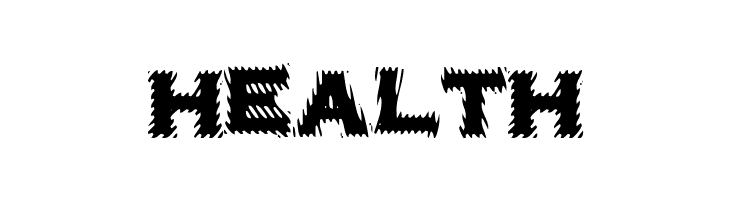
A bold, dripping font with a playful, eerie style perfect for spooky themes.
A bold, drippy font with a spooky, playful style.
A bold, distressed font with jagged, eroded edges for dramatic impact.
A decorative, distressed font with an eerie, horror-themed style.
A bold, geometric font with a futuristic, angular design.
A bold, playful outline font with a cartoonish and energetic style.
A bold, playful font with a shadow effect and cartoonish style.
A bold, playful font with rounded, exaggerated shapes and a whimsical style.
A playful and bold font with rounded, whimsical letterforms.
A playful, outlined font with a hand-drawn, whimsical style.
A playful, bold font with a hand-drawn style and shadow effect.
A playful, bold font with a shadow effect and cartoon-like style.
A playful, bold font with rounded, quirky characters.
A playful, outlined font with a cartoonish and whimsical style.
A playful, bold font with a distinctive shadow effect and cartoonish style.
A playful, outlined font with a crafty, handmade feel.
A playful, hand-drawn font with a whimsical and casual style.
A playful and whimsical font with lively curves and angles.
A playful, outline-style font with rounded, whimsical characters.
A playful, bold font with a shadow effect and cartoon-like style.
A playful, bold font with a cartoonish style and shadow effect.
A playful, bold, and outlined font with a cartoonish, hand-drawn style.
A playful, hand-drawn style font with bold, rounded characters.
A playful, bold font with a shadow effect and rounded, flowing characters.
A playful, modern outline font with rounded, bold characters.
A bold, playful script font with rounded characters and a modern flair.
A playful, outlined font with a hand-drawn, cartoonish style.
A playful, bold font with a shadow effect, ideal for creative projects.
A playful, bold font with rounded, whimsical characters.
A playful, hand-drawn outline font with smooth curves and a whimsical style.
A playful, bold decorative font with a shadow effect and rounded, elongated characters.
A whimsical, playful font with bold, expressive characters and a unique flair.
A playful, hand-drawn outline font with a whimsical and casual style.
A playful, hand-drawn font with a bold shadow effect, ideal for creative designs.